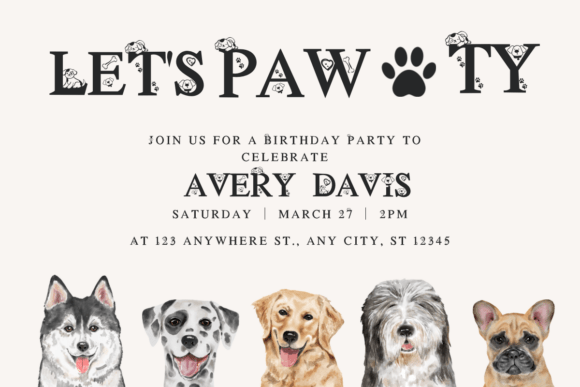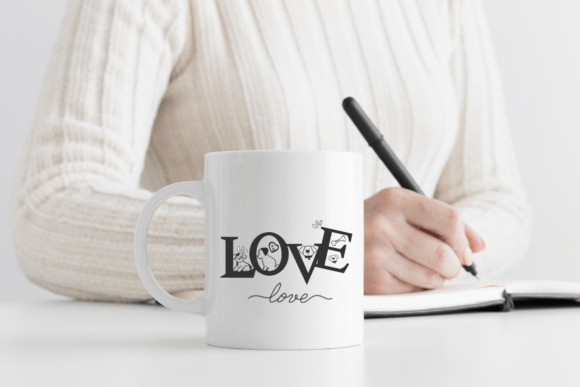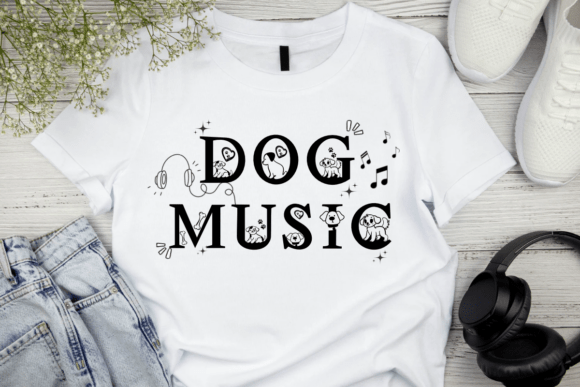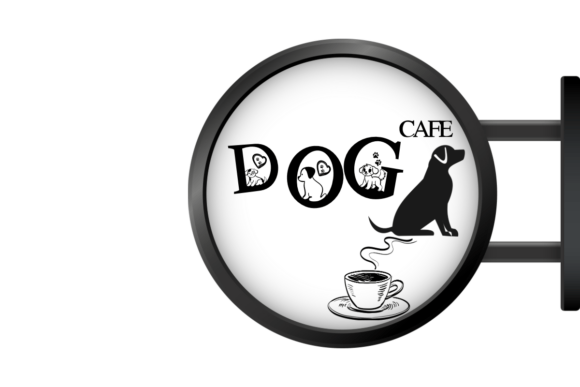
Introducing “Dog Woof” – A Playful Touch to Your Creativity!
Are you tired of using the same old fonts for your designs and crafts? Look no further! We’re excited to introduce “Dog Woof,” a delightful font designed to add a playful touch to your creativity. With Dog Woof, you can bring warmth and liveliness to your words, making every creation stand out.
Dog Woof is more than just a font – it’s an experience. Imagine being able to add charm to every letter, making your notes, journals, and design projects truly special. Whether you’re a designer, crafter, or simply someone who loves to express themselves through art, Dog Woof is the perfect companion for your creative journey.
Endless Possibilities with Dog Woof
The versatility of Dog Woof is one of its most exciting features. This delightful font can be used for a wide range of designs, including:
- Vibrant Banners: Create eye-catching banners that grab attention with Dog Woof’s playful and energetic vibe.
- Stylish Shirts: Add a touch of whimsy to your apparel designs with Dog Woof’s charming letters.
- Cute Mugs: Make your mug designs stand out with Dog Woof’s warm and lively font.
- Social Media Content: Elevate your social media game with Dog Woof’s fun and engaging style.
What Makes Dog Woof Special?
So, what sets Dog Woof apart from other fonts? Here are a few reasons why designers and crafters love this delightful font:
- Playful yet Readable: Dog Woof strikes the perfect balance between playfulness and readability, making it easy to use for a wide range of projects.
- Unique Character: Each letter in Dog Woof has its own unique personality, adding a touch of charm to your designs.
- Versatile: Dog Woof can be used for both digital and print projects, making it a great addition to your font library.
How to Use Dog Woof in Your Projects
Using Dog Woof in your projects is easy! Here are a few tips to get you started:
- Pair it with Other Fonts: Combine Dog Woof with other fonts to create a unique and visually appealing design.
- Experiment with Colors: Dog Woof looks great in a variety of colors, so don’t be afraid to experiment and find the perfect hue for your project.
- Add Graphics: Combine Dog Woof with graphics and illustrations to create a truly eye-catching design.
Get Creative with Dog Woof!
In conclusion, Dog Woof is a delightful font that’s sure to bring a smile to your face. With its playful and energetic vibe, it’s the perfect addition to any design or craft project. So go ahead, get creative with Dog Woof, and let your ideas run free!
- What is Dog Woof? Dog Woof is a playful font designed to add a touch of whimsy to your designs and crafts.
- Can I use Dog Woof for digital projects? Yes, Dog Woof can be used for both digital and print projects.